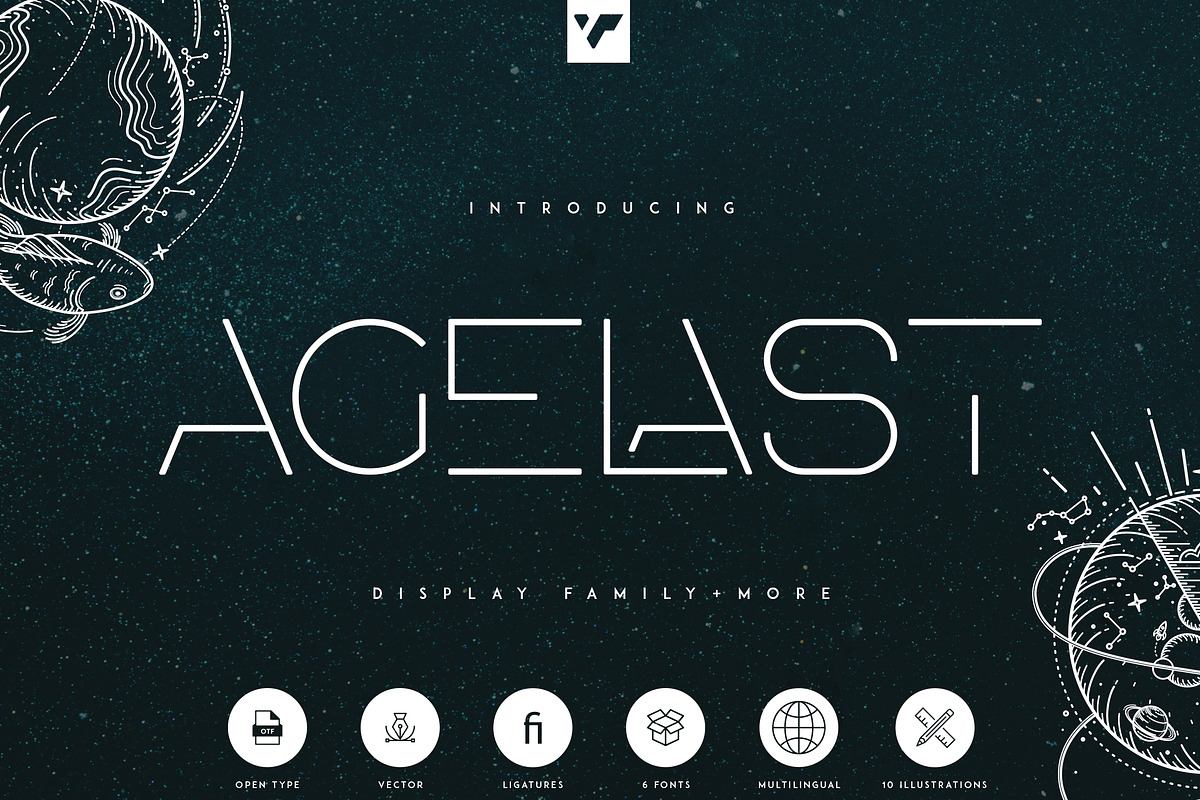
Agelast Display Family + 10 Graphics Free Download is a striking and versatile font bundle that includes a comprehensive display family along with 10 complementary graphic elements. The Agelast Display Family features multiple weights and styles, making it ideal for branding, editorial layouts, posters, packaging, and more. Its bold, elegant, and modern design ensures your typography makes a strong visual impact.
The bundle also includes 10 high-quality graphics that pair beautifully with the fonts, offering additional creative flexibility for your projects. Whether you’re designing for fashion, advertising, or creative branding, Agelast provides a complete solution for typography and graphics.